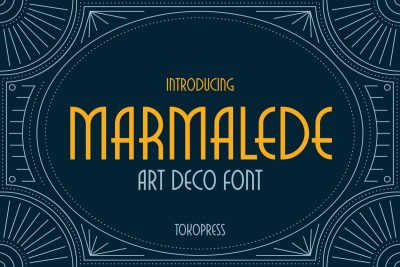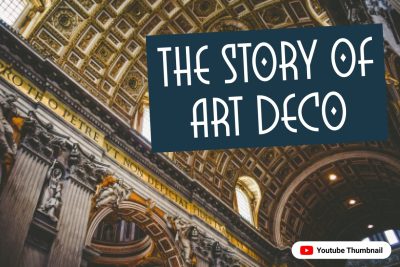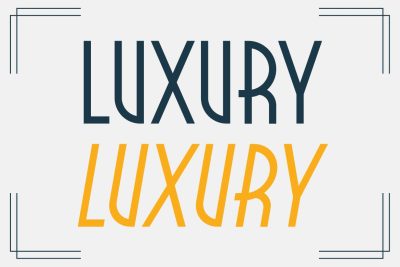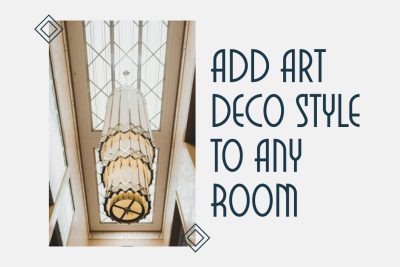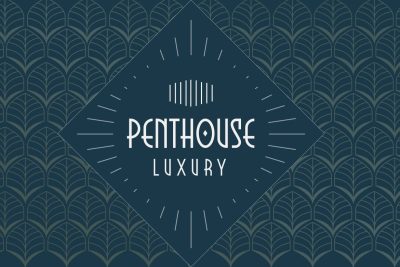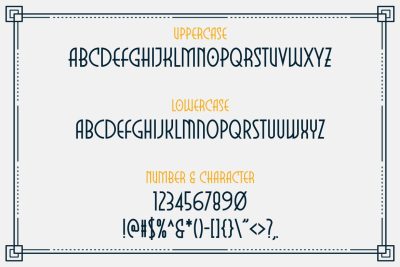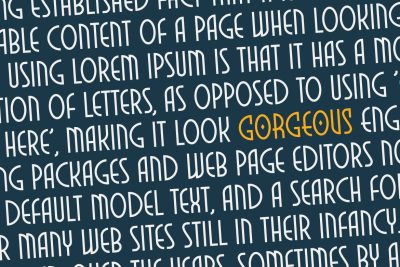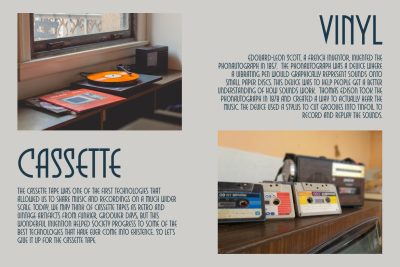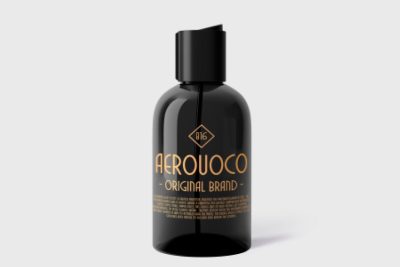
Marmalede – Classic font
Instagram font Marmalede is an elegant Art Deco typeface that not only captures the style of the 1920s and 1930s but also blends it with a modern twist. Its bold, geometric letterforms make it stand out as a versatile display font. Additionally, Marmalede combines clean lines with vintage detailing, reflecting the luxurious feel of the Art Deco movement.
The font is tall, narrow, and features rounded edges, giving it a sophisticated yet approachable look. Moreover, its subtle curves add a fluid touch to its otherwise geometric structure. As a result, Marmaledeโ€™s design is perfect for evoking a timeless appeal while maintaining a modern edge. It works especially well on digital platforms like Instagram, where strong visuals are essential. Furthermore, as an Instagram font, Marmalede elevates content with its bold yet refined style, making your posts, stories, or headers instantly eye-catching. Whether you’re using it for logos or headlines, this font creates an unforgettable visual impact.
Instagram Font Marmalede Suited For
The Instagram font Marmalede is great for designers, influencers, and brands who are seeking a vintage yet modern touch. Specifically, itโ€™s ideal for those in fashion, luxury, art, or design-related industries. Marmaledeโ€™s design, inspired by Art Deco, offers a sense of sophistication and exclusivity, which is key for premium brands.
Fashion bloggers and influencers, for instance, can use Marmalede for Instagram Stories, headlines, or branded posts. Its stylish look fits perfectly with fashion-forward content. In addition, luxury brands can also benefit from its mix of sleek modernity and vintage charm, helping them create a unique identity. This font works well for marketing materials in jewelry, upscale events, or boutique hotels.
Furthermore, graphic designers, especially those in print media, will appreciate Marmaledeโ€™s versatility. It not only adapts well to minimalist layouts but also complements more ornate designs. Consequently, it becomes a valuable tool for both digital and print projects alike, offering flexibility across diverse design applications.
Taking an art deco look, Marmalede is all about classic and elegance on the feel.